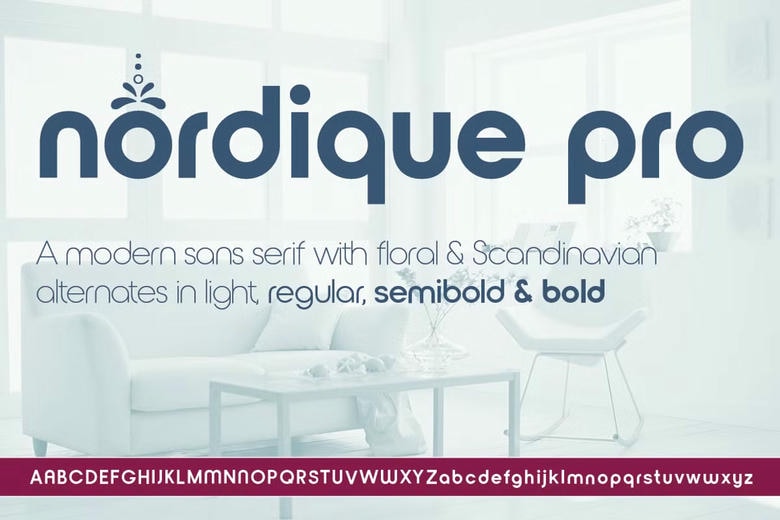
Nordique Pro Font
Nordique Pro Font: Designed by Andrea Leksen, Nordique Pro font was developed with an intention of the designer’s Swedish and Norwegian origins and fraternal relation to the Nordic countries. Due to the comparatively high x-height,
Nordique will be most effective at large point sizes, in headings and other large sizes. Light, regular, semibold and bold styles all have over 50 ornaments, swashes, alternatives and borders to use – the neoclassical process of the rosemåling and kurbits painting style.